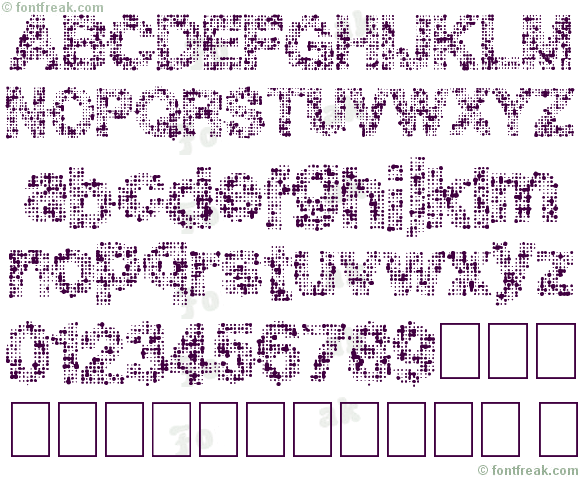
PixelDrip
About PixelDrip
PixelDrip by XEROGRAPHER FONTS is an eye-catching display font that perfectly embodies a retro, pixelated aesthetic reminiscent of early digital art and video games. This decorative typeface features a unique combination of irregular stroke weights and a distinctive dot matrix style, creating a visually striking appearance that draws attention. The spacing between characters is thoughtfully designed to maintain legibility while enhancing the overall visual impact, making it an ideal choice for various creative projects.
The PixelDrip font is versatile and can be used effectively in a range of applications. It works beautifully for video game graphics, lending a nostalgic feel to promotional materials or branding. Additionally, it can be utilized in event posters, giving a playful and modern twist to announcements. Restaurant menus that focus on a retro theme or quirky food items will also benefit from this font, making the dining experience feel more engaging. Furthermore, the font can shine in merchandise design, such as t-shirts or stickers, appealing to a younger audience with a penchant for vintage aesthetics.
What sets the PixelDrip font apart is its ability to blend nostalgia with modern design sensibilities. Its playful, pixelated charm sparks interest and invites engagement, making it a memorable choice for any project. For those looking to enhance their visual storytelling, the PixelDrip font free download offers an opportunity to incorporate a unique element into their creative toolkit.